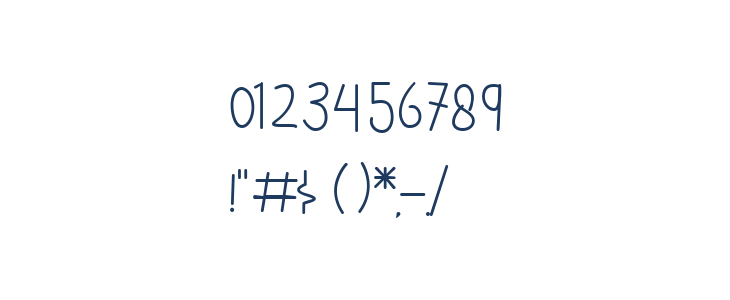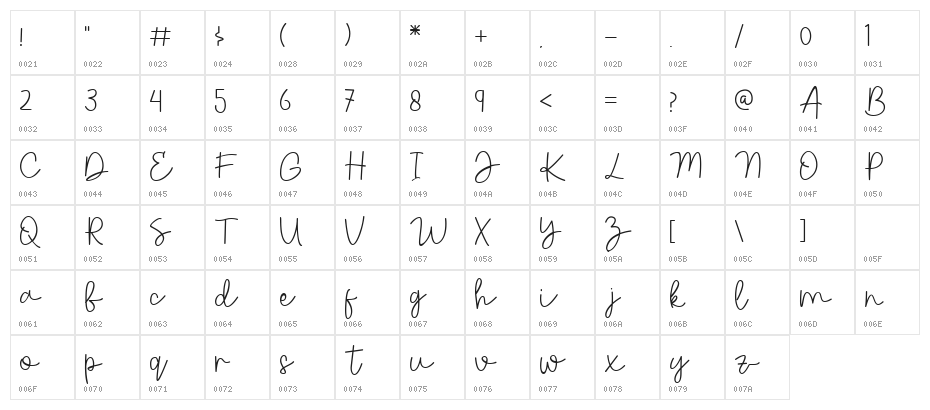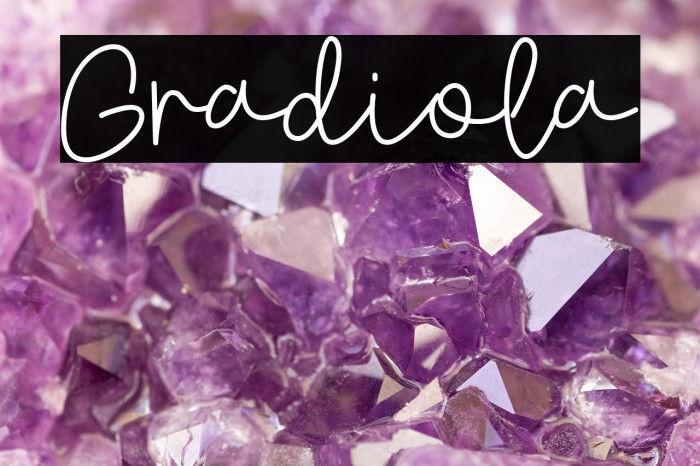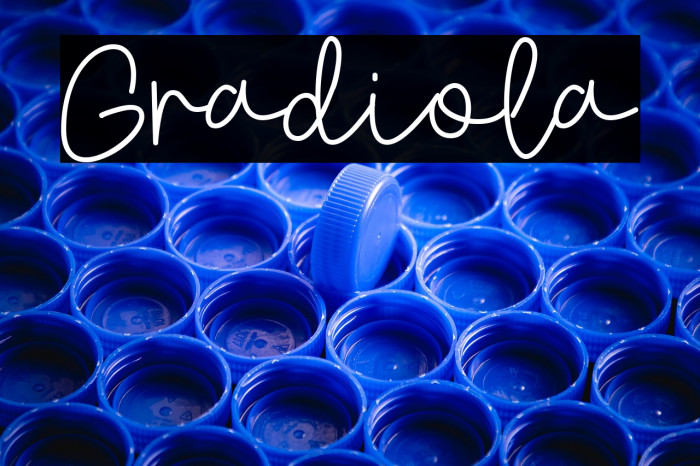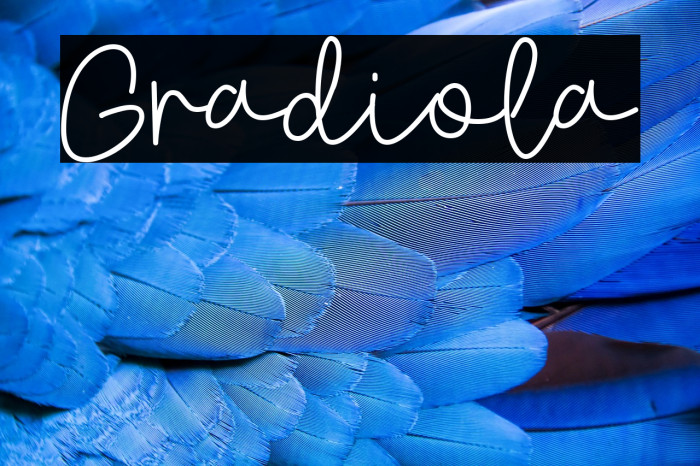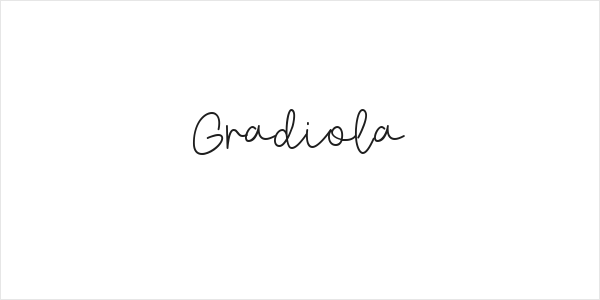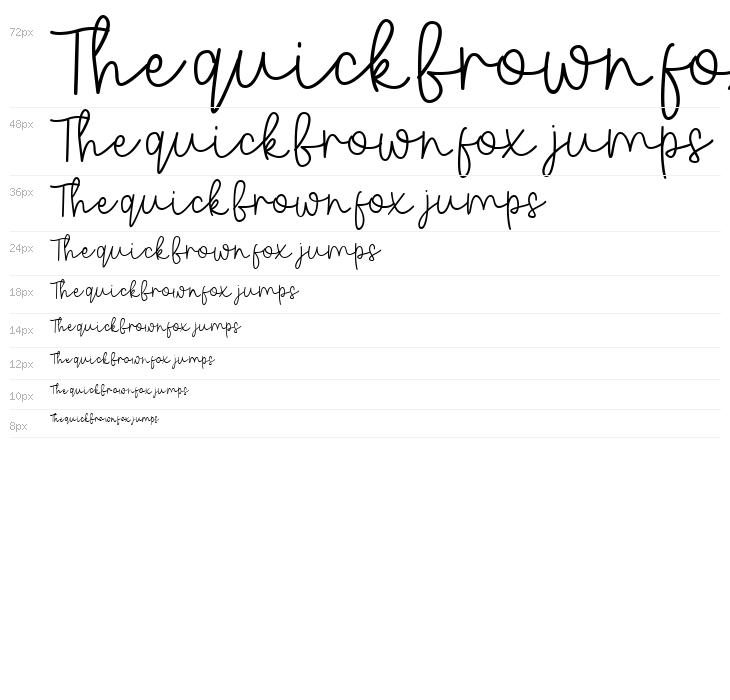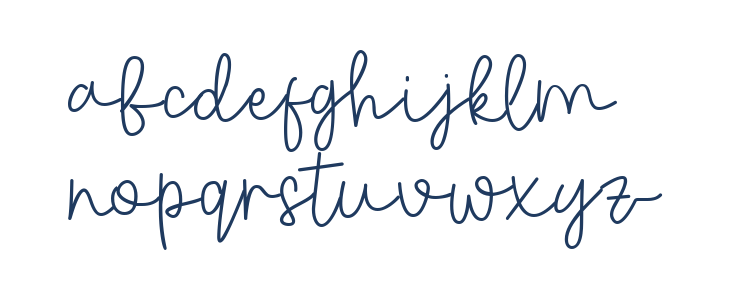
Gradiola Font
Gradiola Description
This font features a playful and casual handwritten style, characterized by its flowing, cursive-like script. The letters are connected in a fluid manner, giving it a natural and organic feel. The strokes are consistent in width, providing a harmonious and balanced appearance. The uppercase letters maintain a distinct and readable form, while the lowercase letters exhibit a charming looped design. The numerals and special characters complement the overall style, ensuring versatility across different uses. This font's informal yet elegant aesthetic makes it suitable for a variety of creative projects.
| Overall Style | Casual, Playful |
| Use Case | Logos, Invitations, Social Media |
| Proposed Projects | Ideal for greeting cards, invitations, personal branding, and social media graphics. |